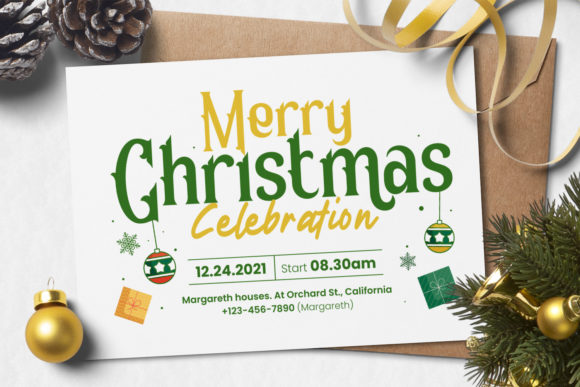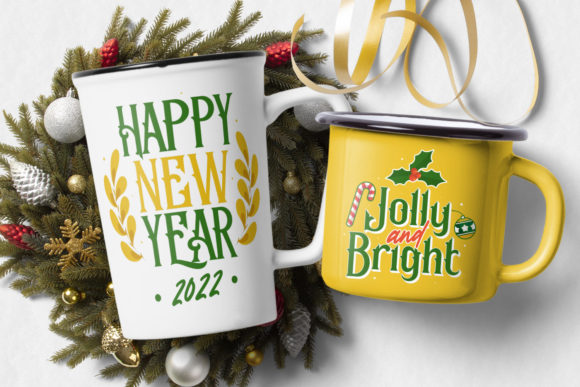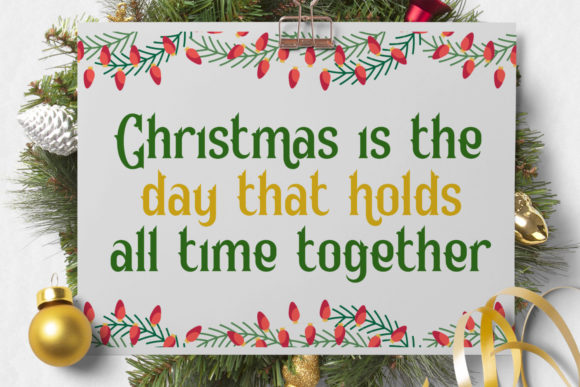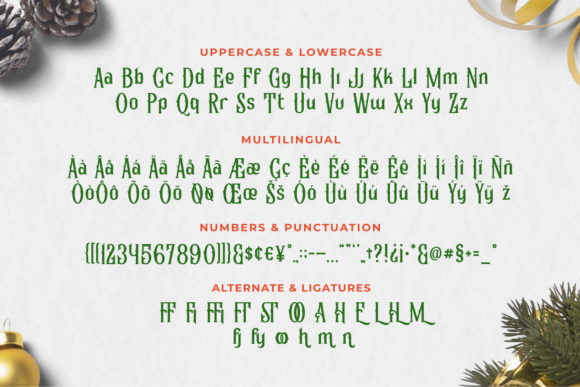
Introducing Gold Shot Font: Elevate Your Designs with a Vintage Flair
Are you on the lookout for a font that can add a touch of elegance and whimsy to your designs? Look no further than Gold Shot Font! This tall and vintage-styled display font is the perfect addition to any creative project, guaranteed to make it stand out from the crowd.
The Charm of Gold Shot Font
Gold Shot Font boasts a unique and captivating charm that is sure to capture the attention of your audience. Its tall and slender lines evoke a sense of sophistication and luxury, while its vintage flair adds a playful and nostalgic touch. Whether you’re working on a branding project, a poster, or a social media graphic, Gold Shot Font is sure to add a dash of personality and style.
Key Features of Gold Shot Font
- Tall and slender lines: Gold Shot Font features tall and slender lines that give it a sense of elegance and sophistication.
- Vintage flair: The font’s vintage-inspired design adds a playful and nostalgic touch to any design.
- Display font: Gold Shot Font is a display font, making it perfect for headlines, titles, and other attention-grabbing elements.
- Easy to read: Despite its ornate design, Gold Shot Font is surprisingly easy to read, making it perfect for use in a variety of contexts.
How to Use Gold Shot Font in Your Designs
Gold Shot Font is incredibly versatile and can be used in a wide range of design contexts. Here are a few ideas to get you started:
- Branding and logos: Use Gold Shot Font to create a unique and memorable logo that stands out from the competition.
- Posters and flyers: Add a touch of elegance and sophistication to your posters and flyers with Gold Shot Font.
- Social media graphics: Use Gold Shot Font to create eye-catching social media graphics that grab attention and drive engagement.
- Packaging design: Add a touch of luxury and sophistication to your packaging design with Gold Shot Font.
Tips for Getting the Most Out of Gold Shot Font
Here are a few tips for getting the most out of Gold Shot Font:
- Experiment with different colors: Gold Shot Font looks amazing in a variety of colors, so don’t be afraid to experiment and find the perfect hue for your design.
- Pair it with a sans-serif font: Pairing Gold Shot Font with a sans-serif font can create a beautiful contrast that adds visual interest to your design.
- Use it sparingly: Because Gold Shot Font is a display font, it’s best to use it sparingly to avoid overwhelming your design.